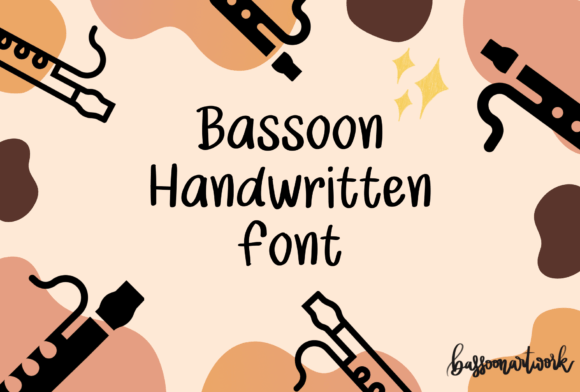
**Bassoon Font: The Quintessential Choice for Baby Stats Plush Designs**
In this digital realm adorned with a plethora of fonts, one name stands out as the perfect choice for baby stats plush designs - Bassoon Font. A creation of Bassoonartwork, Bassoon is an embodiment of simplicity, fun, and cuteness, manifested through its handwritten strokes. It is a font that perfectly captures the charm and innocence of little ones, making it the ideal companion for any project that seeks to celebrate the joy of new life.
**A Symphony of Emotions, Crafted with Care**
Bassoon Font is a symphony of emotions, meticulously crafted to evoke a sense of warmth, tenderness, and unconditional love. Its whimsical curves and playful characters dance across the screen, creating an irresistible allure that draws you in. Each letter is a testament to the boundless creativity of childhood, inviting you to explore a world where imagination reigns supreme.
**A Versatile Performer, Ready for Any Occasion**
The versatility of Bassoon Font is truly remarkable. Whether you're crafting personalized baby blankets, designing adorable nursery wall art, or creating heartfelt baby shower invitations, Bassoon Font seamlessly adapts to your creative vision. Its charming personality shines through in any context, leaving an enduring impression on all who behold it.
**A Touch of Uniqueness, Exclusively Yours**
With Bassoon Font as your creative ally, you can effortlessly elevate your baby stats plush designs to new heights of originality. Its distinctive style sets your creations apart from the ordinary, ensuring that each piece carries a unique charm that reflects the individuality of the little one it represents.
**A Journey of Discovery, A Lifetime of Memories**
Bassoon Font is more than just a collection of characters; it's an invitation to embark on a journey of discovery, to create keepsakes that will be cherished for a lifetime. As you design with Bassoon Font, you'll find yourself immersed in a world of wonder and delight, where every letter tells a story and every design becomes a treasured memory.